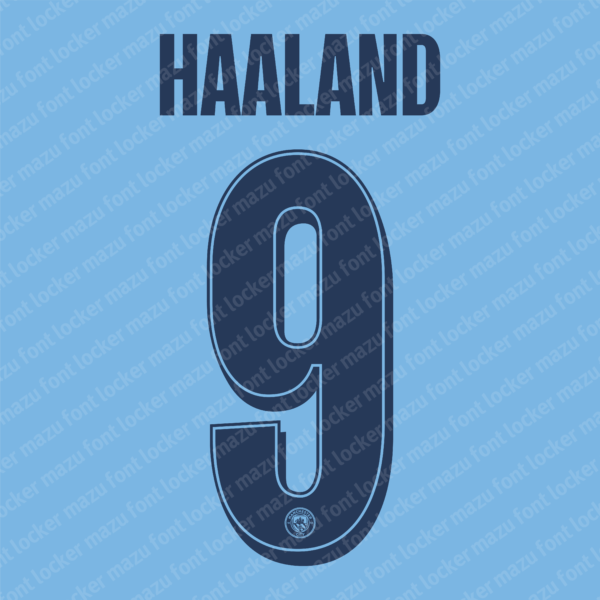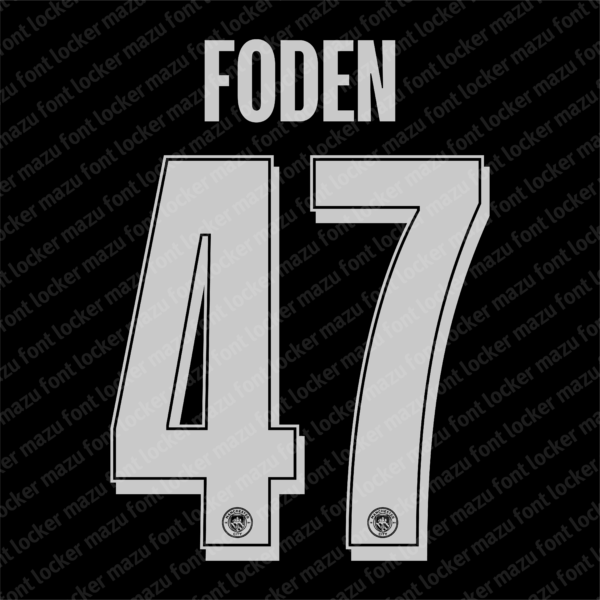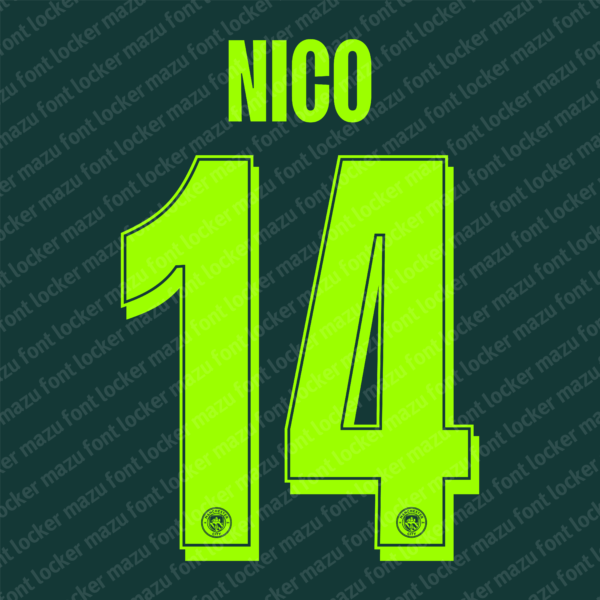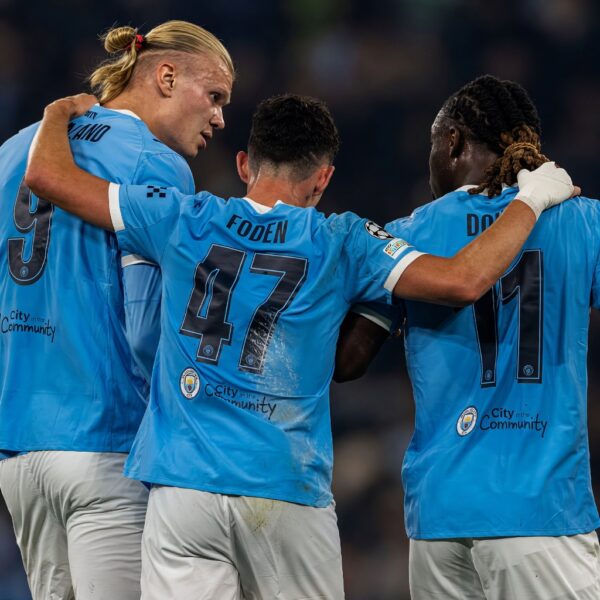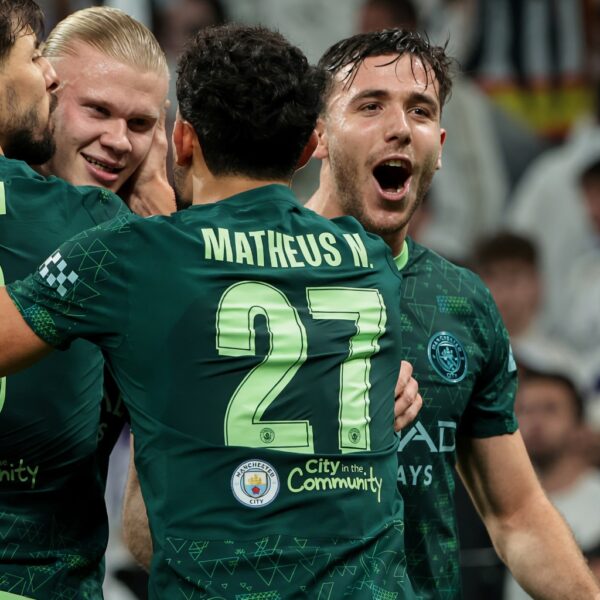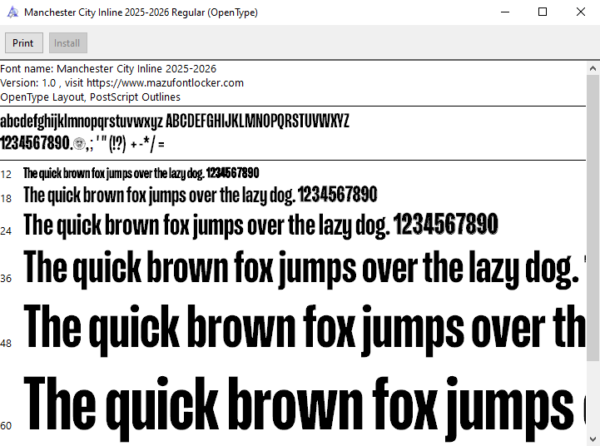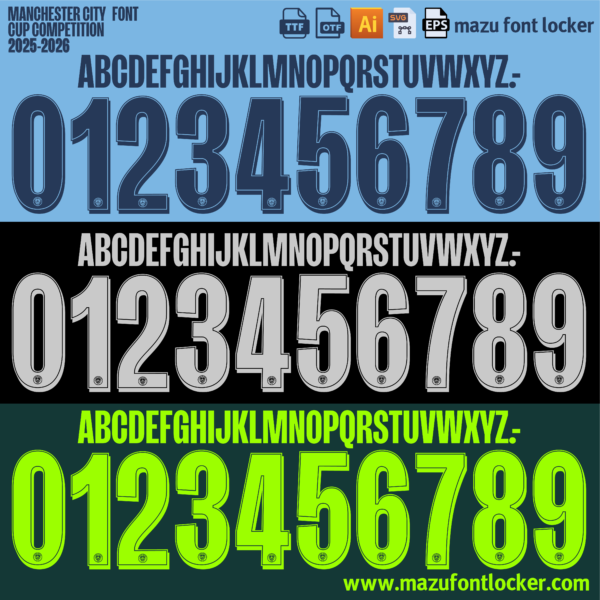
Manchester City 2025-2026 Font Vector – Epic Unstoppable Citizens Masterpiece
Download the Manchester City 2025-2026 Font and experience the dominance of one of football’s greatest modern teams. This premium, high-precision football jersey font vector is expertly crafted to capture the fearless identity, rich heritage, and explosive passion of Manchester City’s powerful 2025-2026 campaign.
Designed with razor-sharp precision, the Manchester City 2025-2026 Font perfectly embodies the club’s iconic sky blue colours, delivering a bold, sleek, and commanding visual presence that radiates pure Citizens supremacy. Every letter and number has been meticulously recreated to reflect the attacking brilliance, tactical mastery, and winning mentality that defines Manchester City on the pitch.
Celebrate the legacy of the Etihad and bring the relentless winning spirit of the Sky Blues to life with the Manchester City 2025-2026 Font.
Manchester City 2025-2026 Font Vector
The Manchester City 2025-2026 Font is a premium, high-precision football jersey font vector meticulously engineered to capture the fearless energy, explosive passion, and electrifying identity of Manchester City’s dominant 2025-2026 campaign.
Inspired by the mighty Citizens and their iconic, high-intensity performances throughout the 2025-2026 season, this font unleashes a bold, sleek, and devastatingly powerful presence that radiates unbreakable Manchester City pride, rich heritage, and unstoppable attacking brilliance. Every letter and number has been painstakingly recreated with razor-sharp precision to embody the vibrant sky blue identity, relentless winning mentality, and glorious legacy that makes Manchester City one of the most dominant forces in modern world football.
Feel the fire of the Etihad. Ignite the passion. Unleash the legendary spirit of the Citizens and the unstoppable power of Manchester City 2025-2026.
🔥 Manchester City 2025-2026 Font Features
• Authentic 2025-2026 Manchester City jersey lettering style
The authentic lettering style helps recreate the classic look of the Manchester City 2025-2026 kit with professional accuracy.
Unlike generic jersey fonts, this set is designed with a strong focus on authenticity and accuracy. Every detail is based on the original match lettering style used during the 2025-2026, helping designers and collectors create realistic football shirt designs.